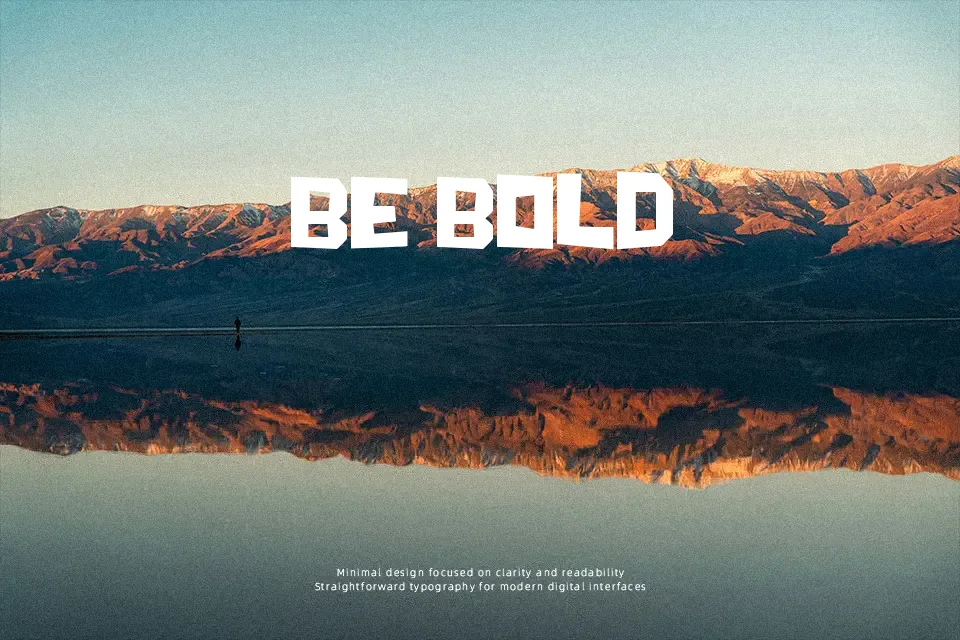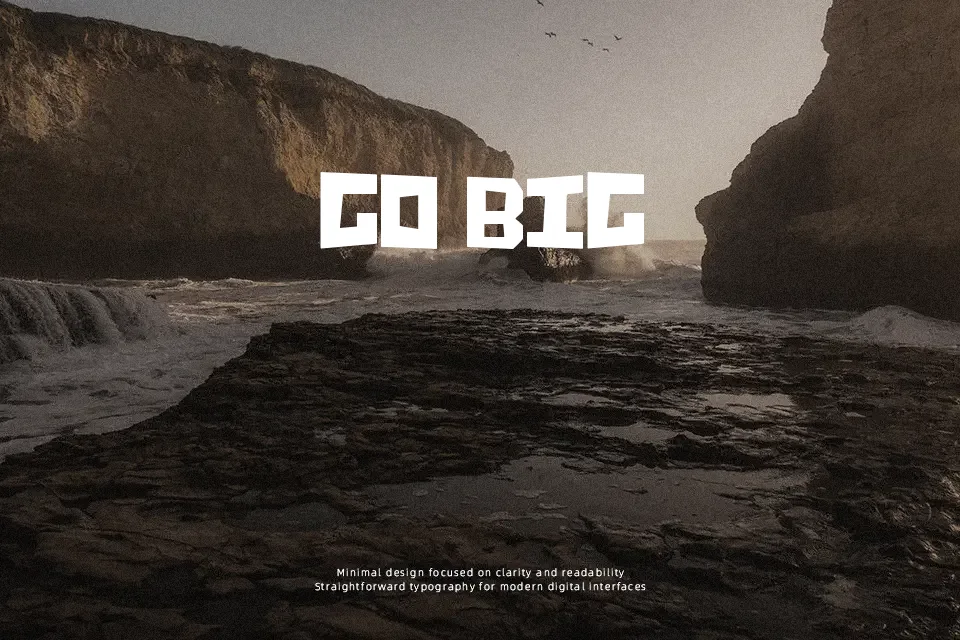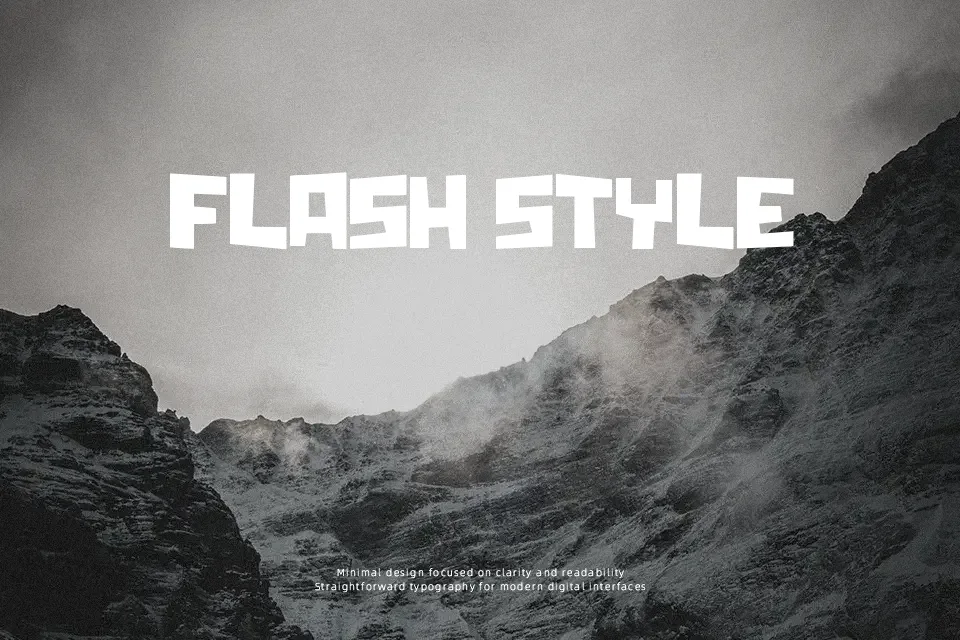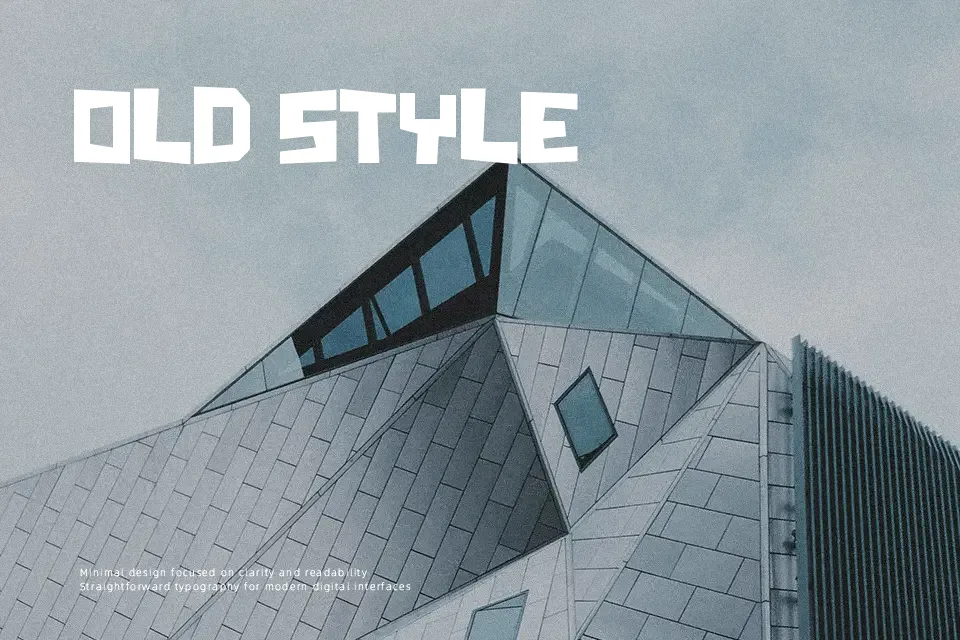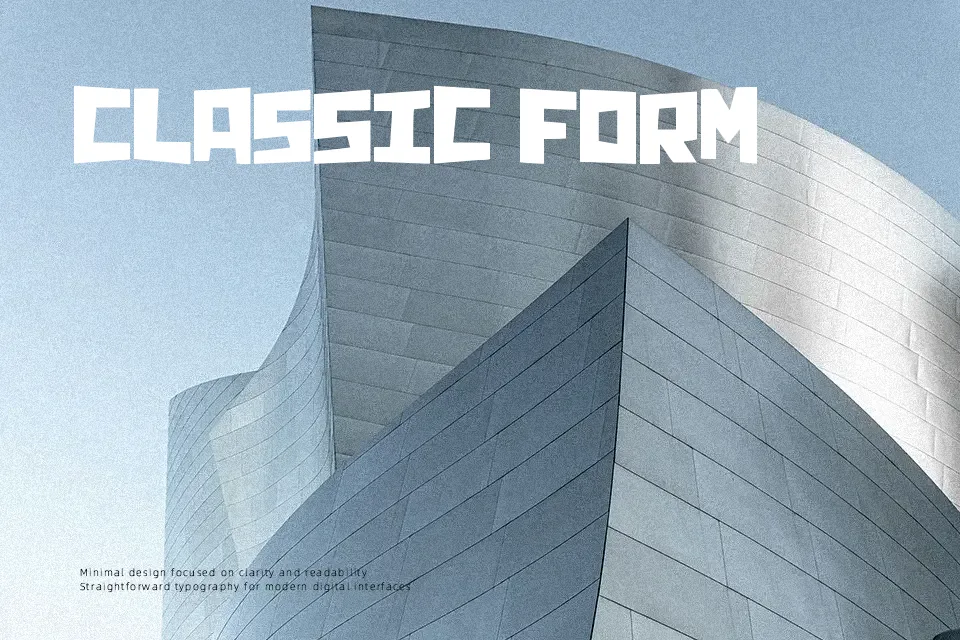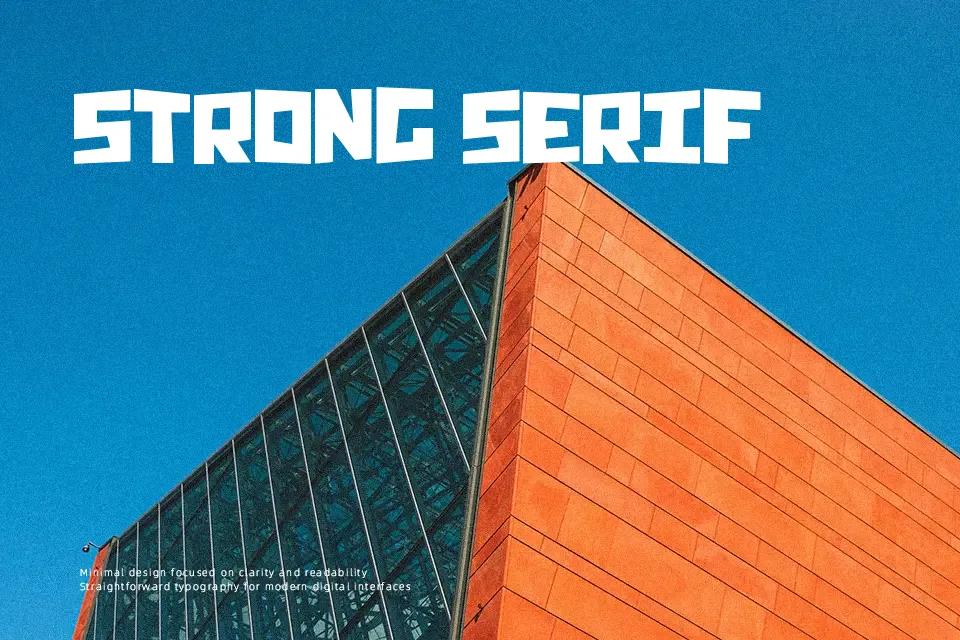
Chunq Font
Designed by Bud White
Defined by its massive footprint and angular cuts, Chunq Font presents an imposing aesthetic rooted in bold geometric construction. The typeface utilizes exceptionally thick strokes with virtually no modulation, creating squarish silhouettes that command immediate attention on a page. Tight character spacing pairs with compact proportions to produce dense, punchy word blocks suited for video game logos, comic book covers, and novelty merchandise. The letterforms maintain crisp legibility at large display sizes where the faceted corners remain pronounced. However, the extreme stroke weight and restricted counters severely compromise readability in continuous text, making the design impractical for body paragraphs or small interface labels.
Best For: video game logos, comic book covers, novelty merchandise packaging, cartoon poster headlines
Not Ideal For: continuous body text, dense editorial layouts, small user interface labels, formal correspondence
Perfect for gaming, headline, and logo, with a bold and cartoon style.